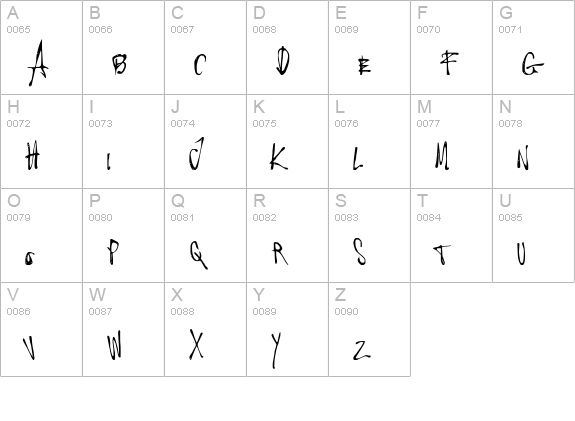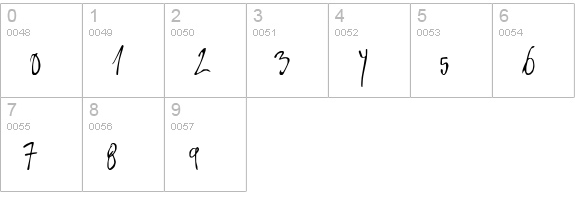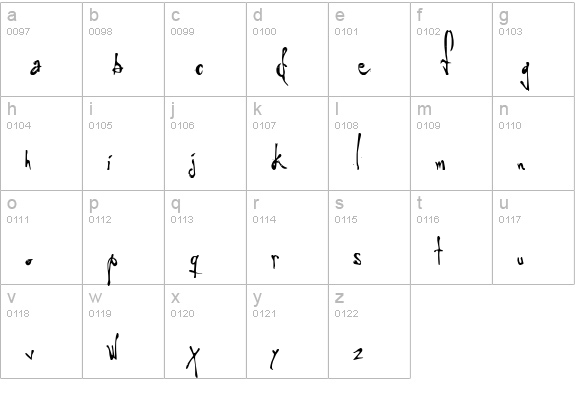
Little Insect from another planet Font Details
Introducing Little Insect from another planet font, a delightful and whimsical typeface that will transport you to a world of imagination and creativity. This unique font features intricate details and playful shapes that give it a charming and otherworldly feel. Little Insect is perfect for adding a touch of magic to your designs, whether you're working on a children's book, a poster, or a branding project. What sets Little Insect apart is its ability to evoke a sense of wonder and curiosity, making it the perfect choice for projects that require a touch of whimsy. The font's quirky personality and distinctive style will make your designs stand out and capture the attention of your audience. Best of all, Little Insect is freely available to download at FontsMarket.com. So why wait? Add a touch of magic to your designs today with Little Insect from another planet font.